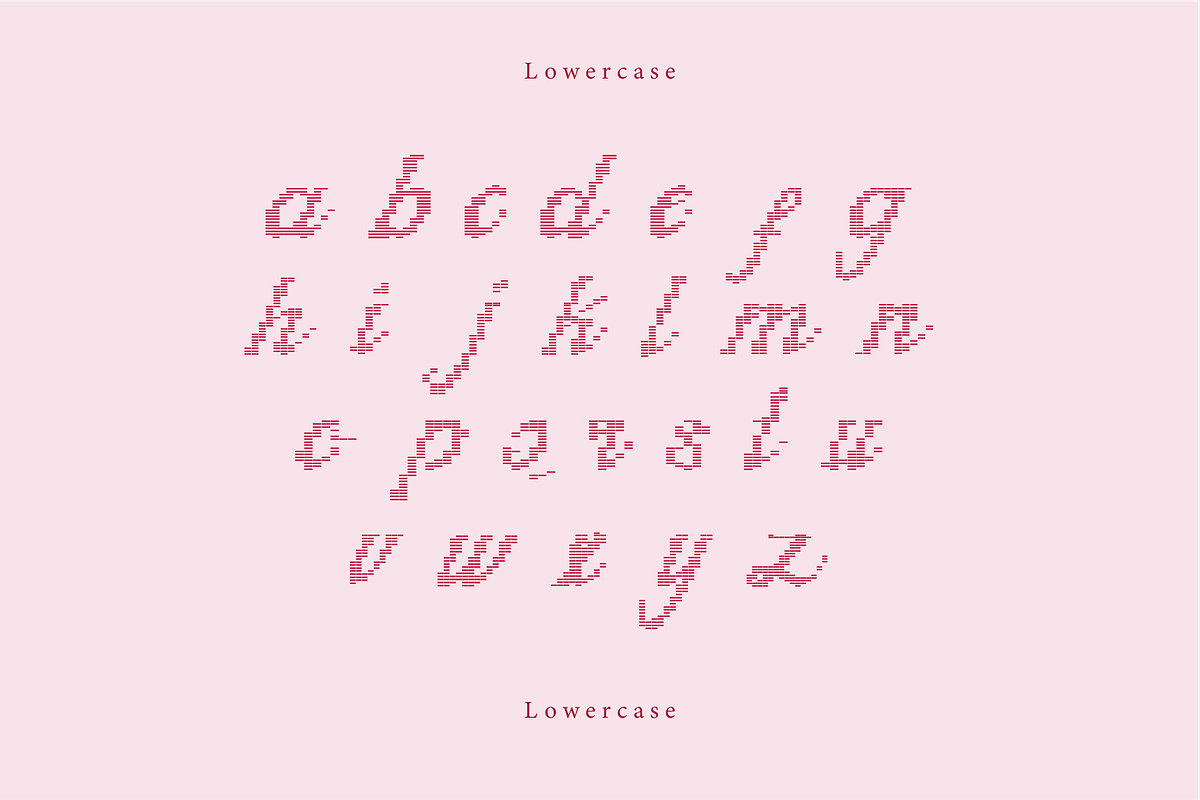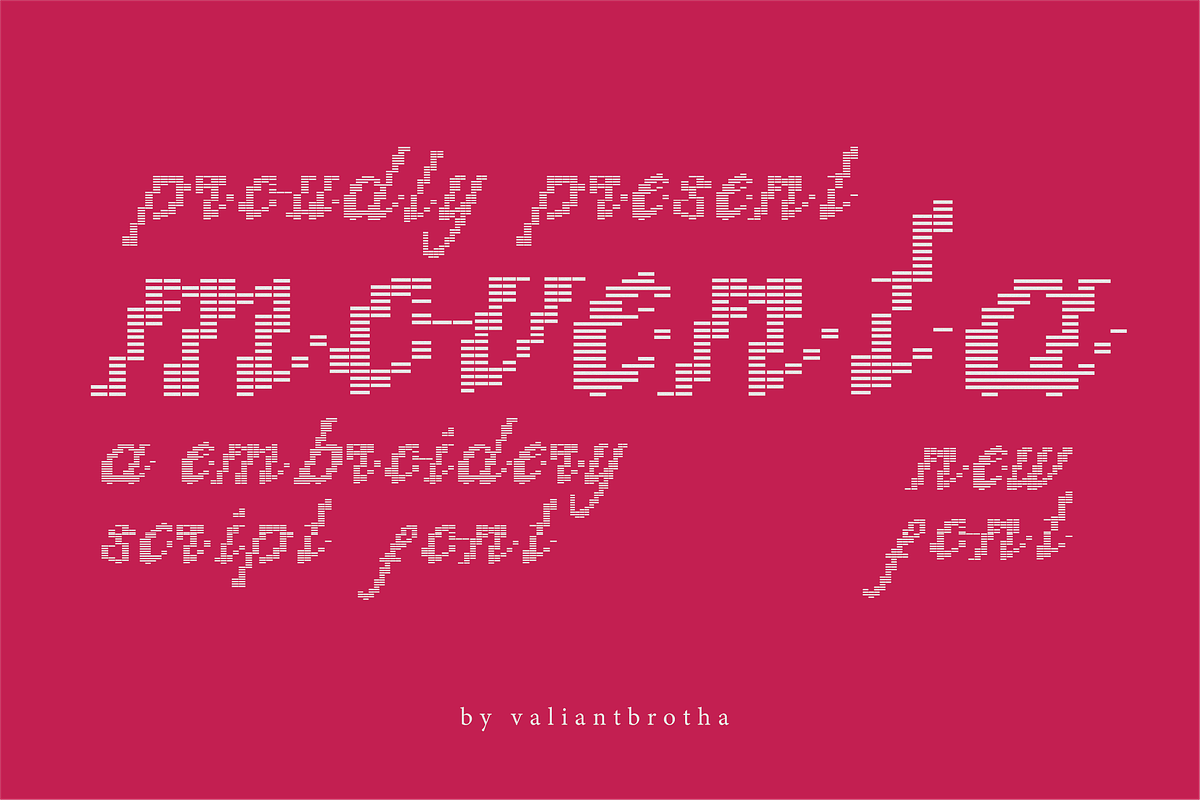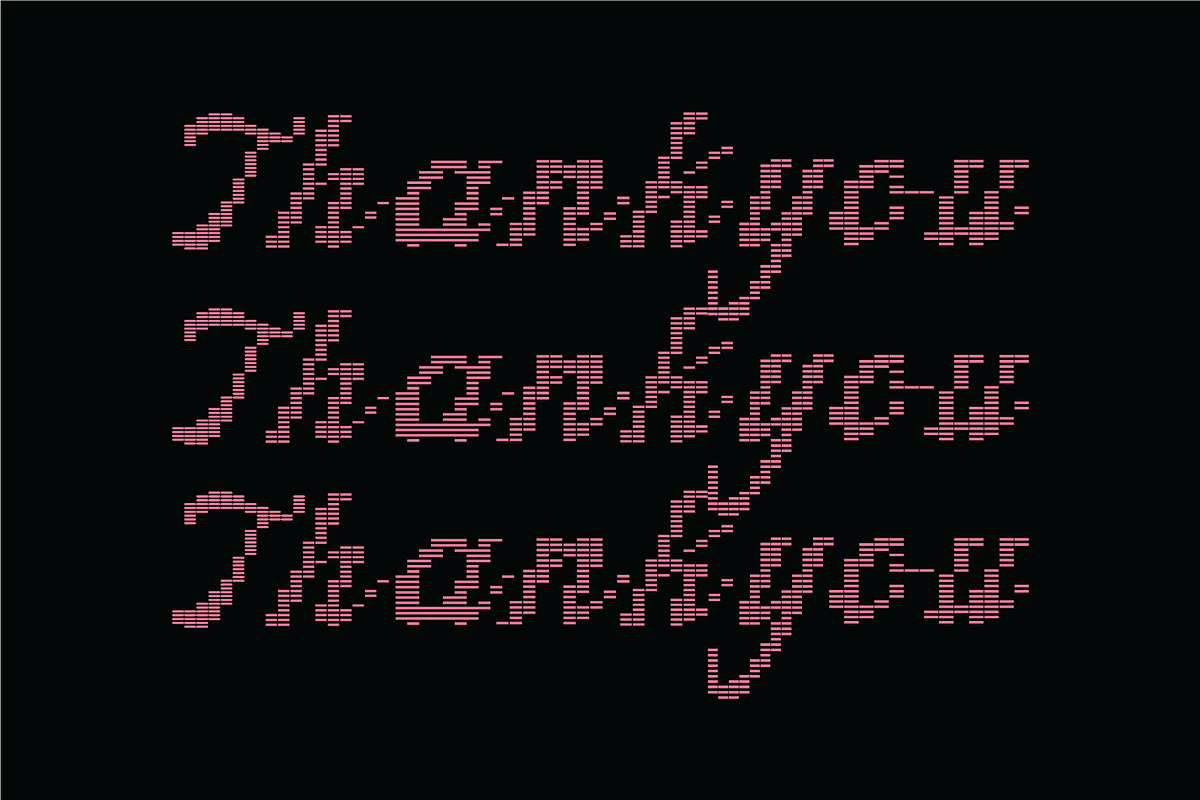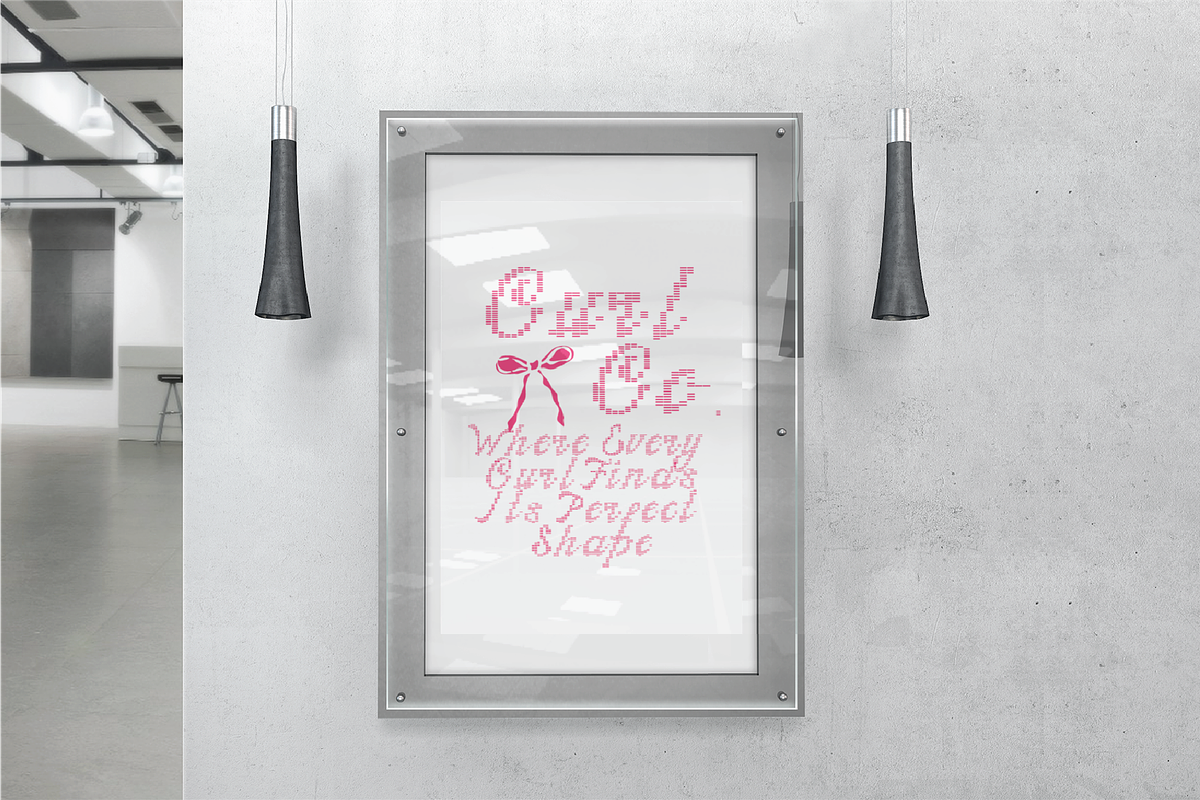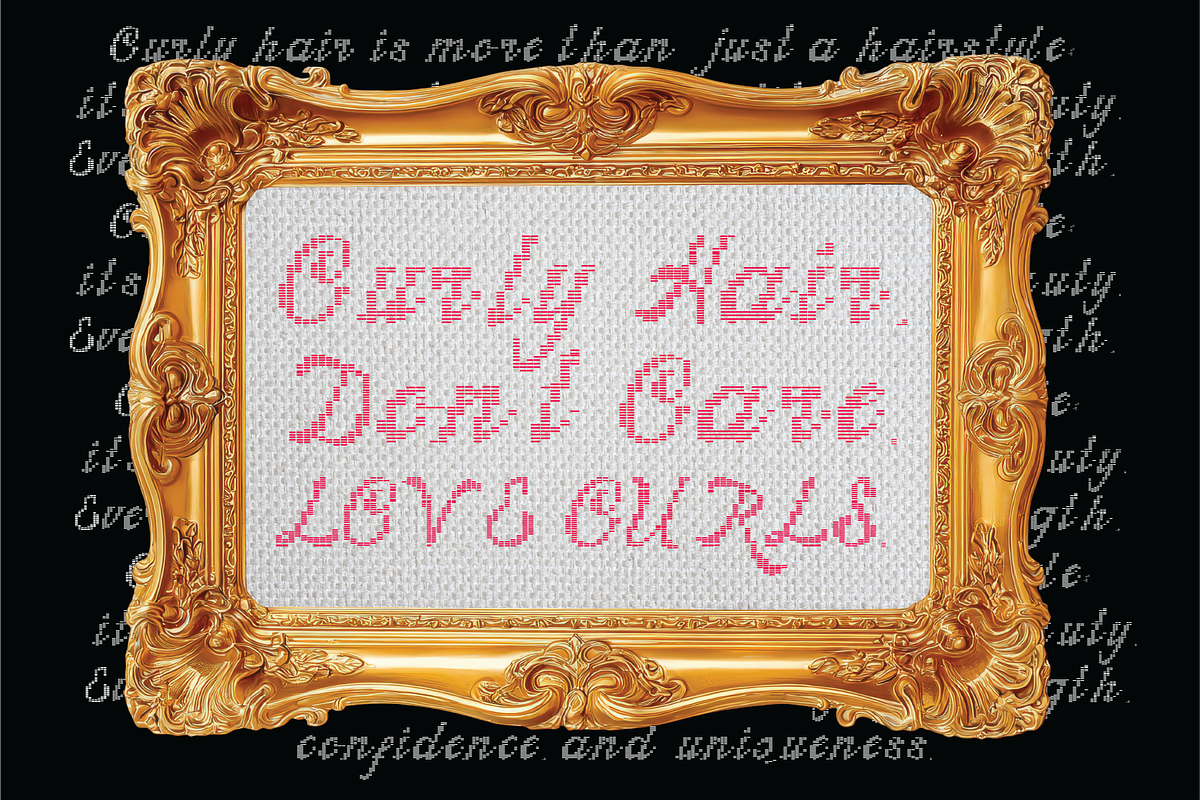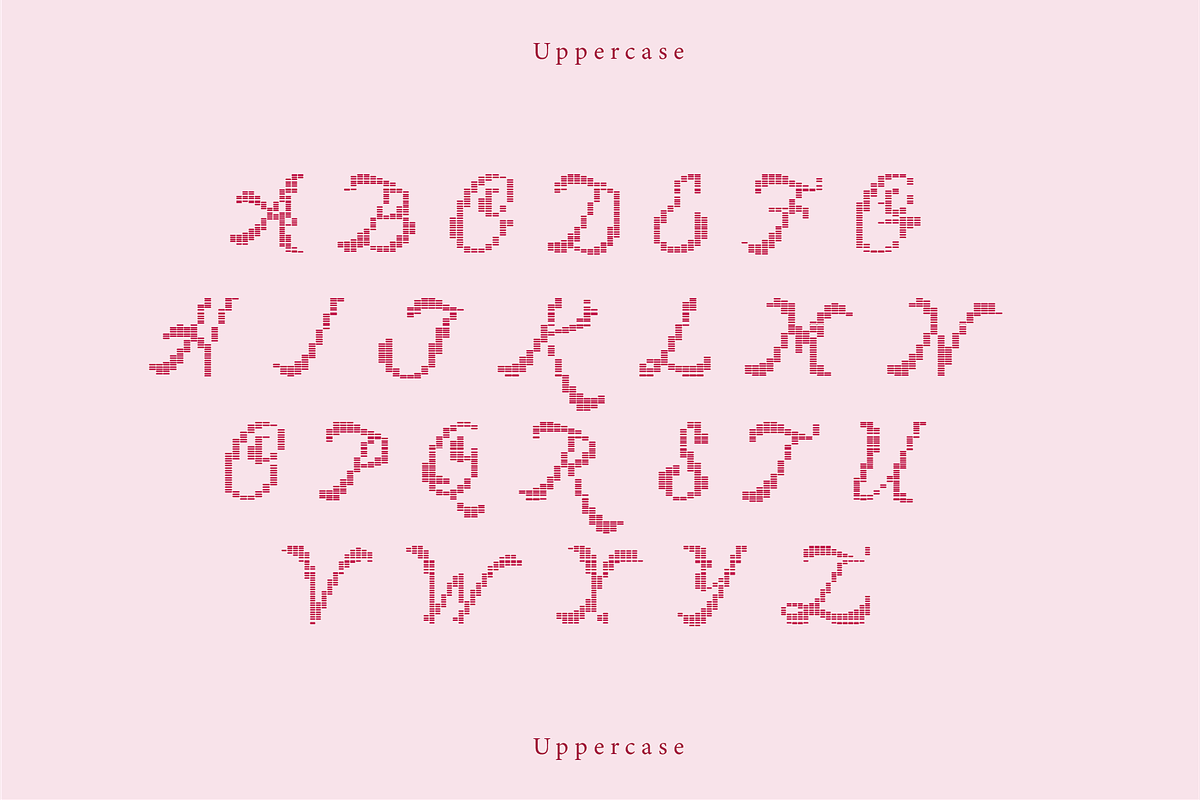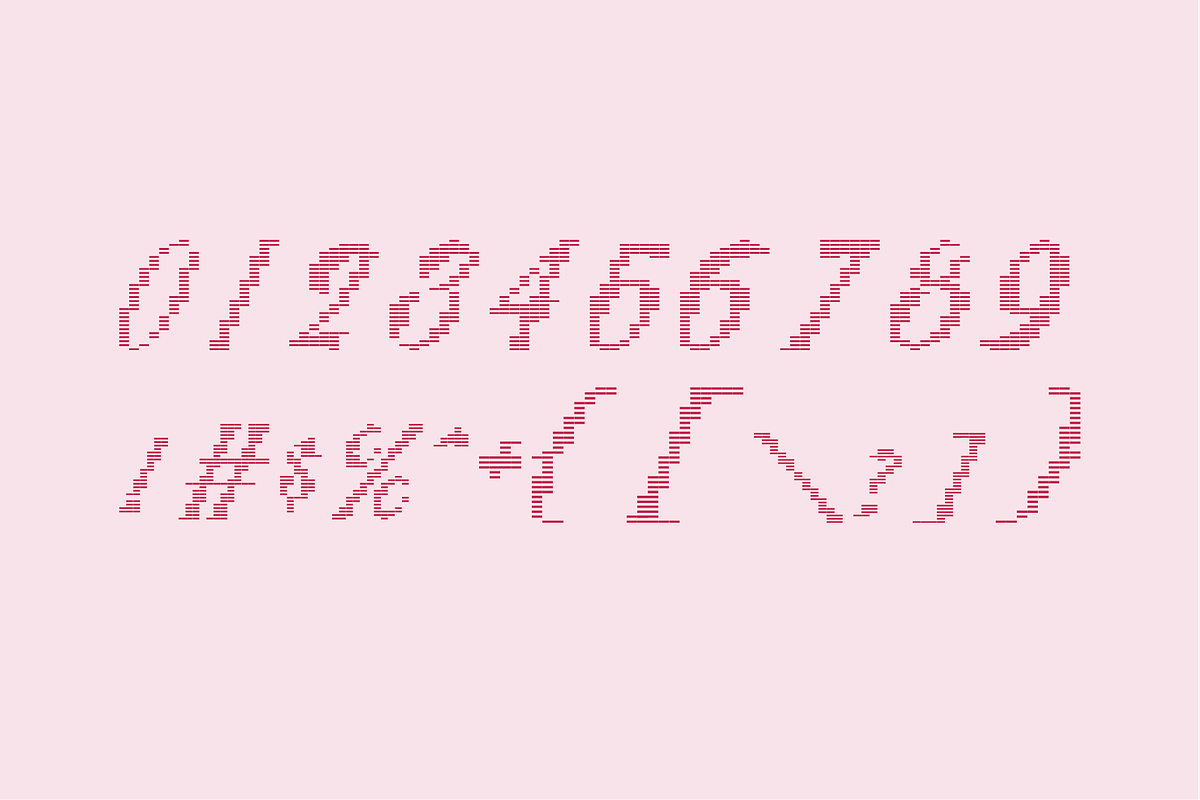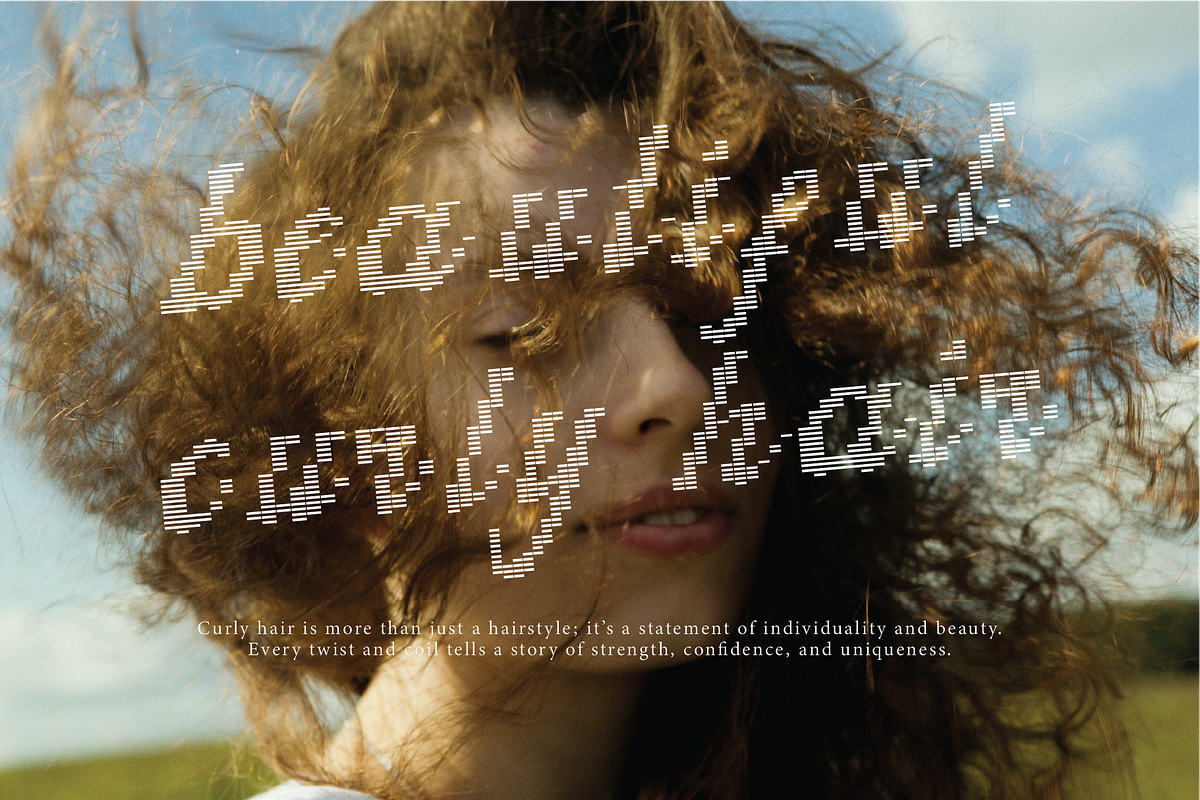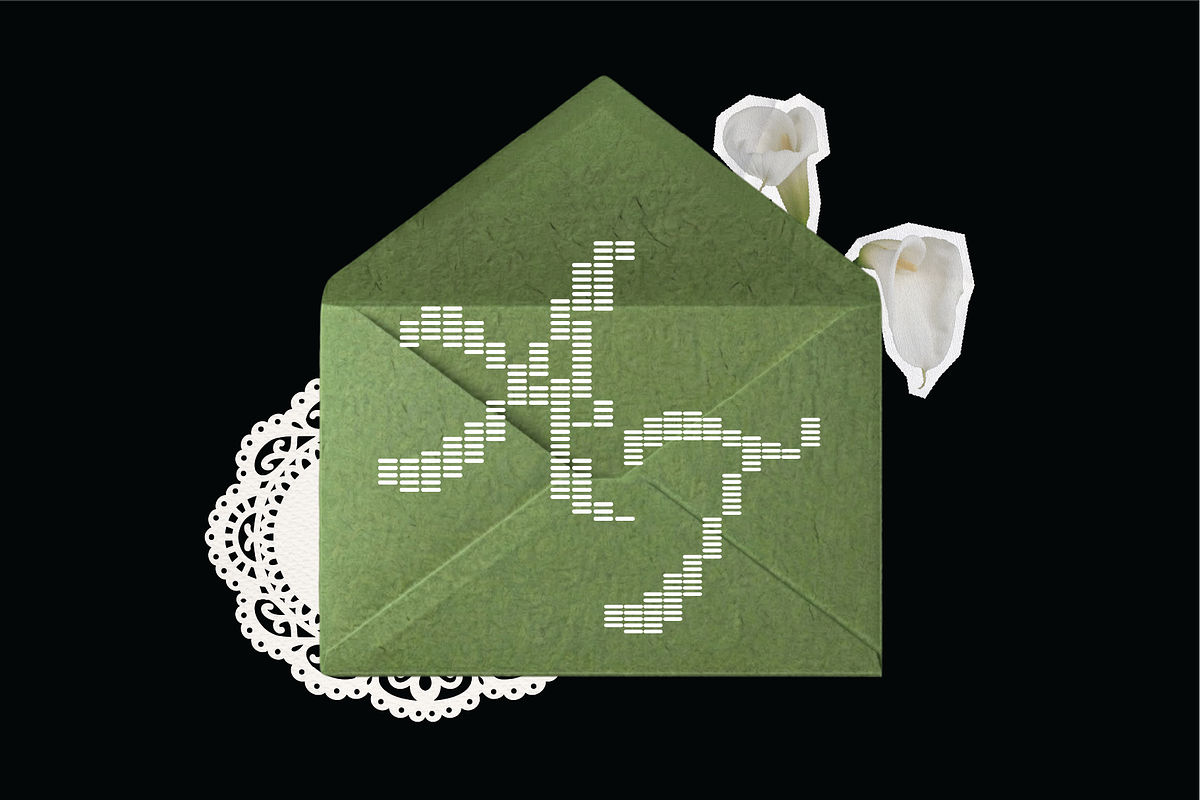
Movento | A Embroidery Script Font
Moventa is a modern striped script font that merges flowing handwritten forms with structured horizontal line elements.
Numbers, marks and symbols